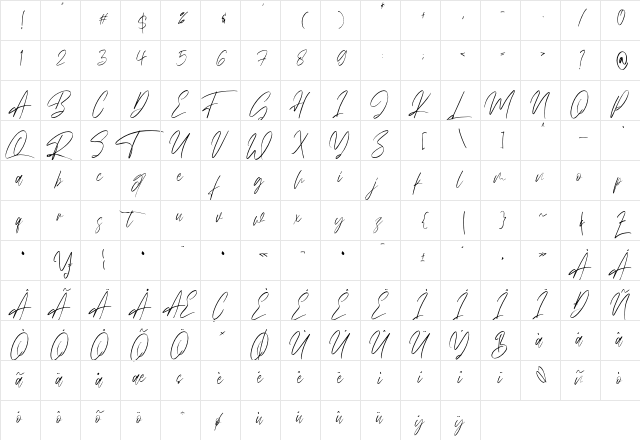
Miny Fellas Regular
Design Context for Miny Fellas Typeface
Miny Fellas is a composed and adaptable typeface that performs quietly and consistently across a wide range of design contexts.